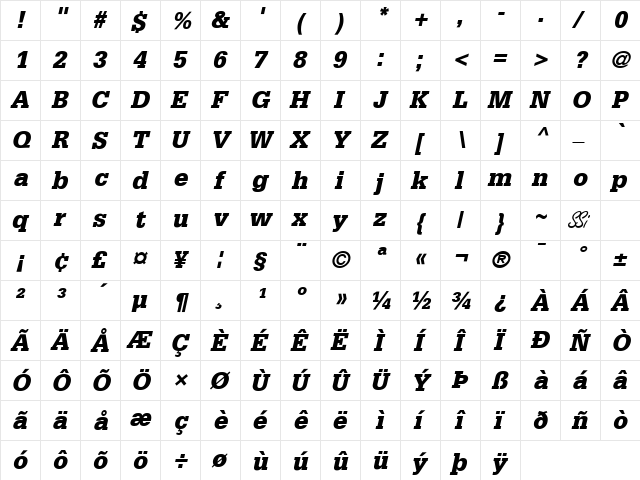
Installation Black SSi Black Italic
Design Context for Installation Black SSi Typeface
Installation Black SSi offers clean, dependable letterforms without strong stylistic allegiance, making it a practical choice for designers who need flexibility. Its italic angle brings a sense of urgency and motion to the letterforms.
Pro Tip: Use Installation Black SSi for emphasis, pull quotes, and subheadings where its slanted energy can add rhythm to the layout.